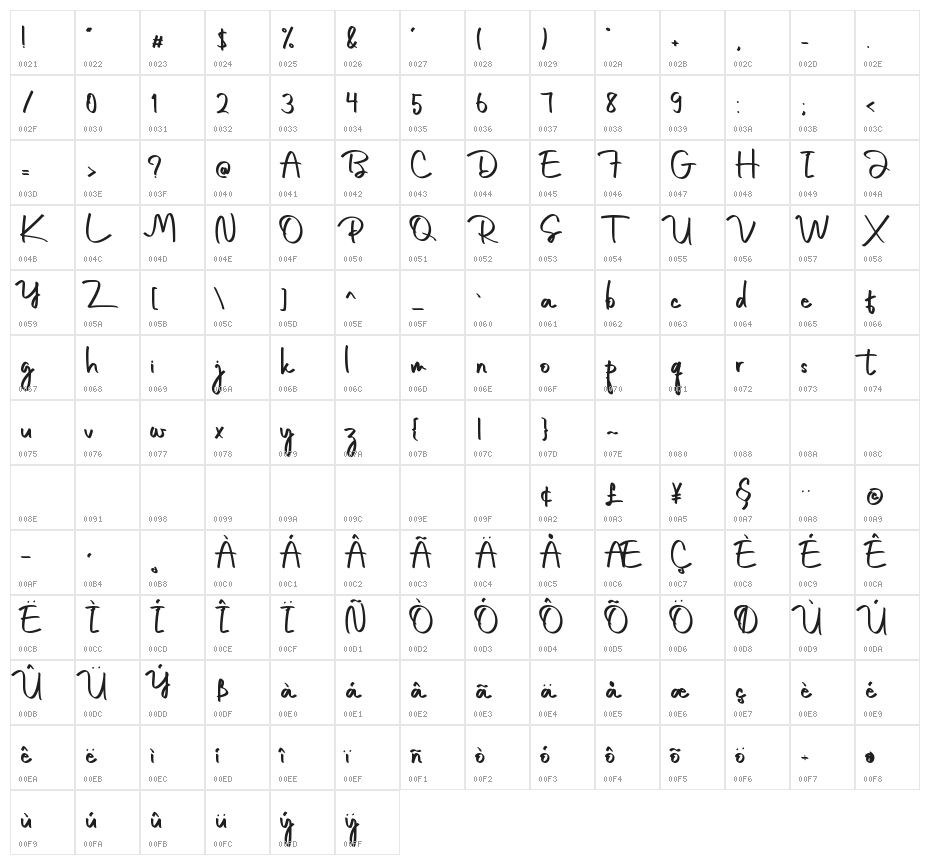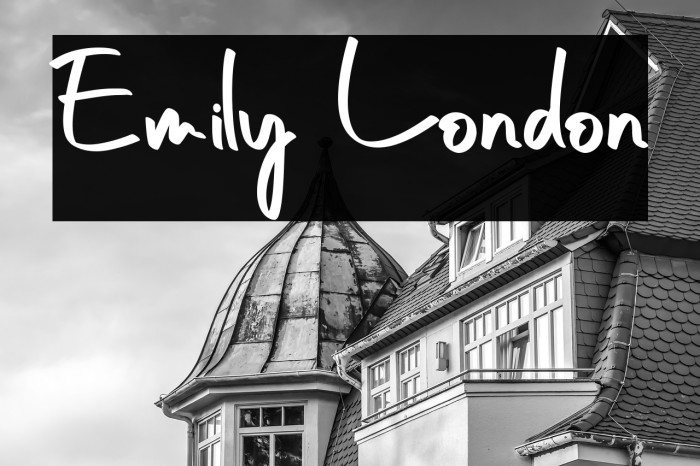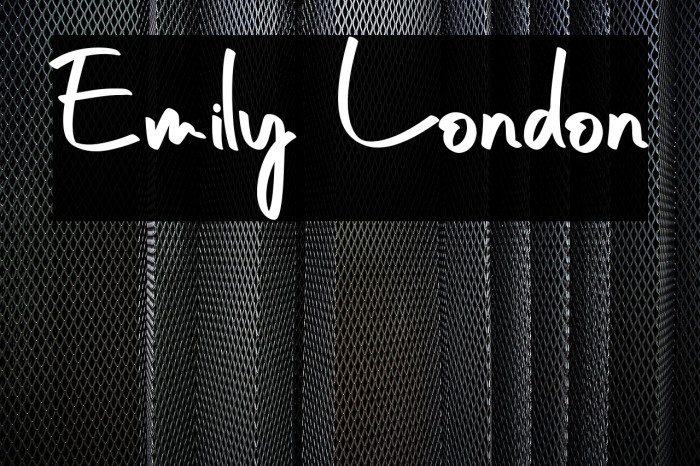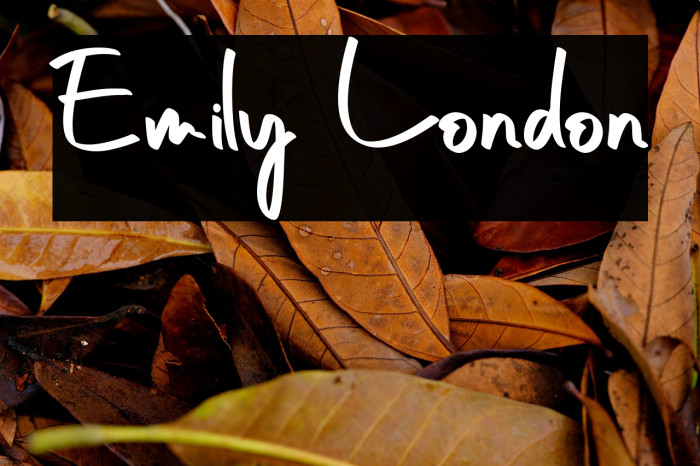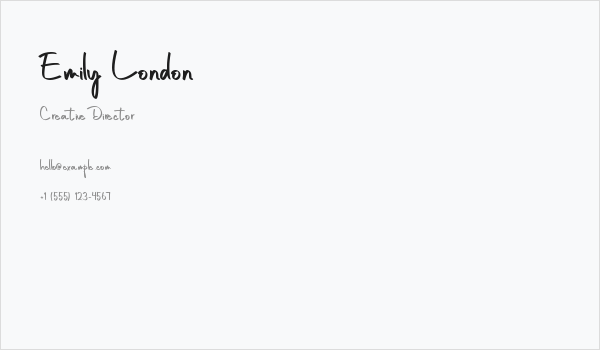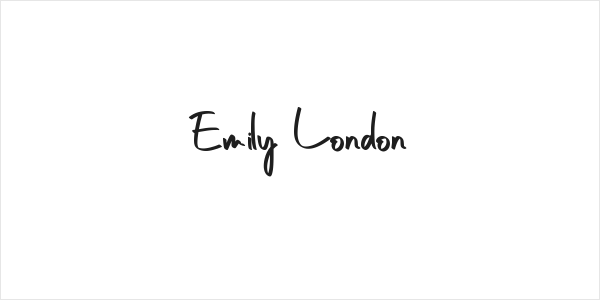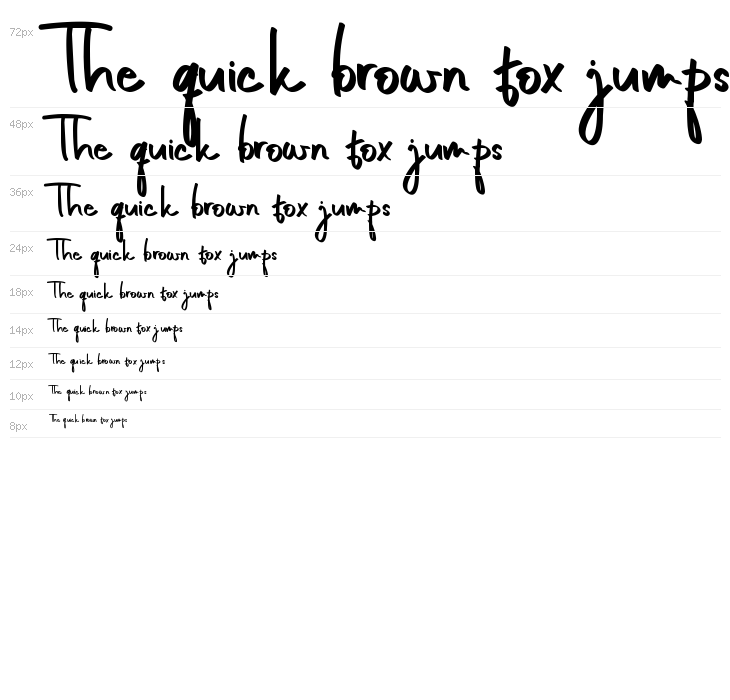
Emily London Font
Emily London Description
This font features a playful and energetic handwritten style, characterized by its fluid and dynamic strokes. The uppercase letters exhibit a whimsical flair with varying stroke widths, while the lowercase letters maintain a consistent, flowing appearance. The numerals are bold and clear, ensuring readability. Special characters are creatively designed, adding to the font's overall charm. The font's informal and lively nature makes it ideal for projects that require a personal touch or a sense of fun.
| Proposed Projects | Ideal for greeting cards, invitations, playful branding, and social media graphics. |